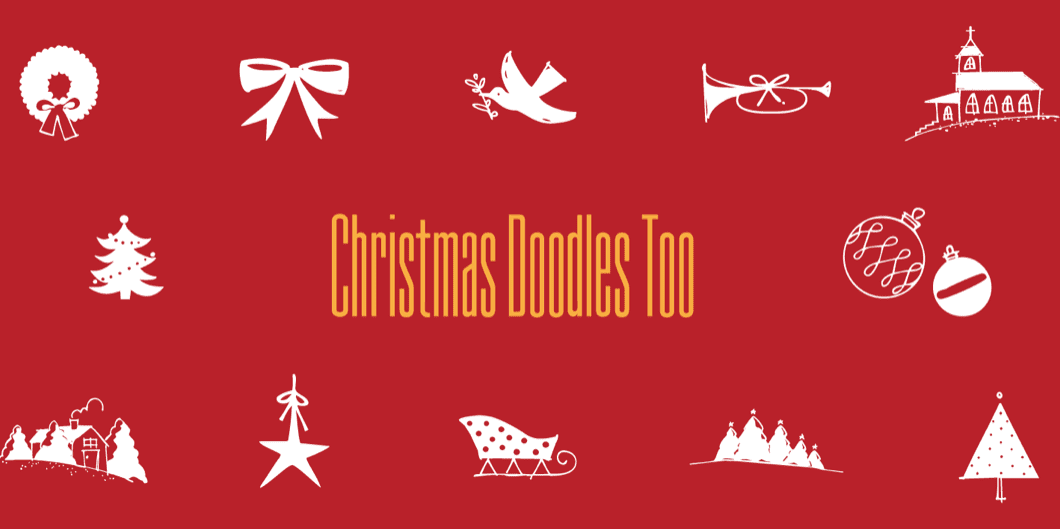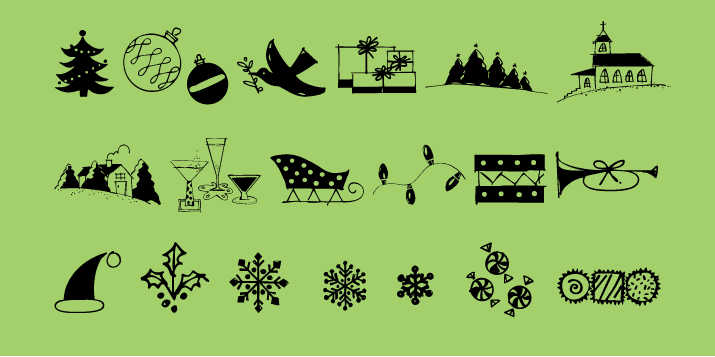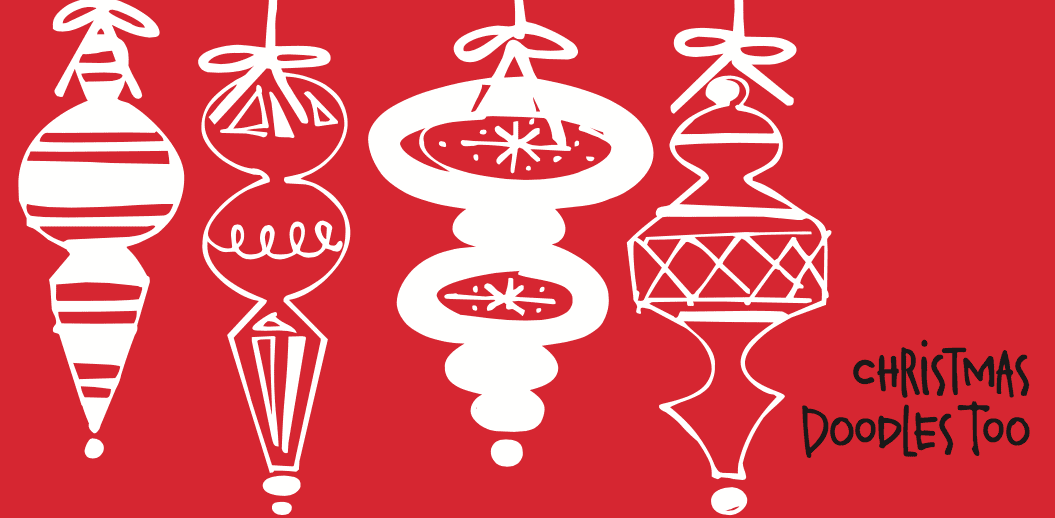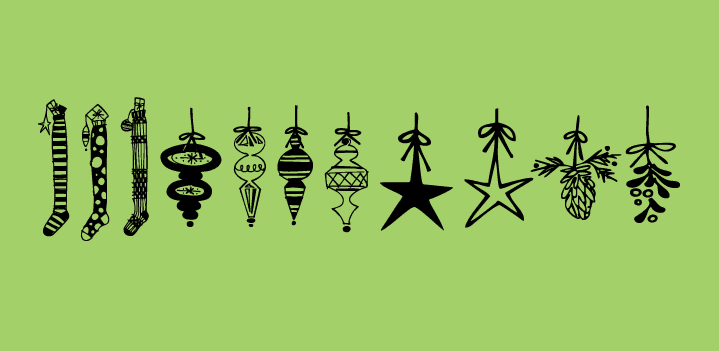
Christmas Doodles Too (1 font)
,br> Christmas Doodles Too is the follow up font to Christmas Doodles. More Christmas icons including a tree, fun new ornaments, a dove, gifts, pine trees, a church, drinks, sleigh, tree lights, drum, horn, Santa hat, holly, snowflakes, stockings, candy, and mistletoe.
This font works well with Holiday Doodles and Holiday Doodles Too which also have Christmas icons in them.